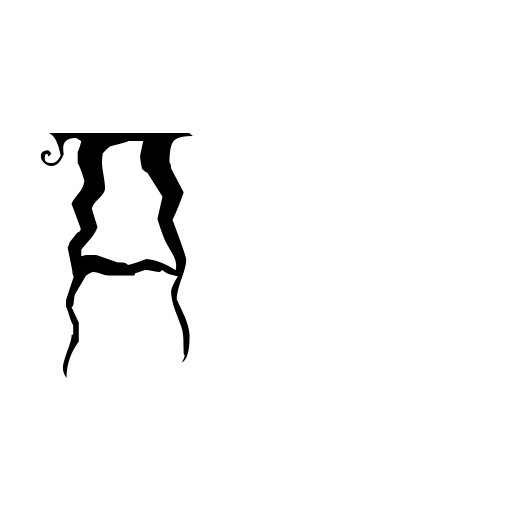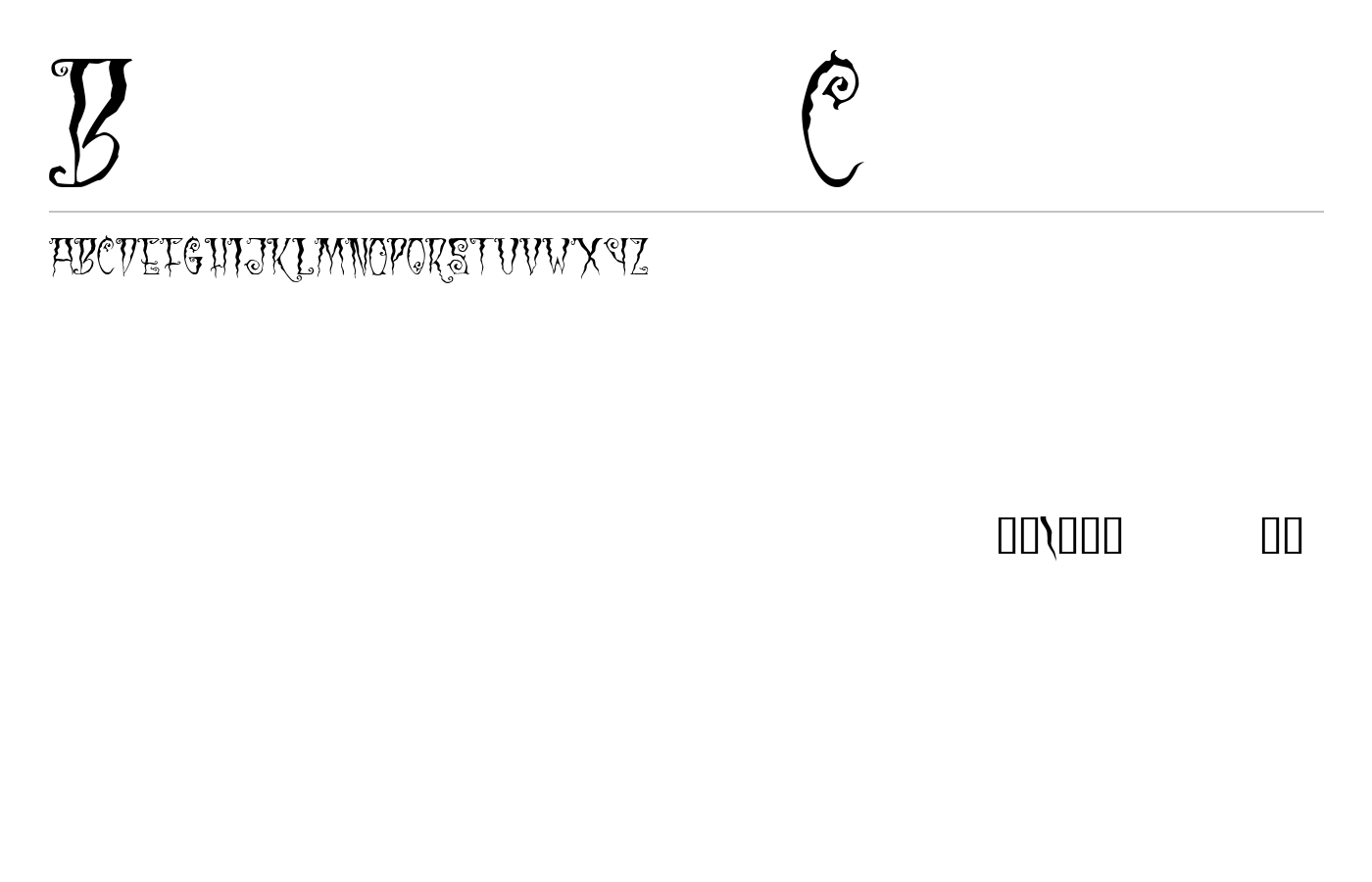
Black Cow is a decorative serif font with a distinctive, quirky style characterized by sharp, irregular strokes and whimsical swirls, giving it a slightly gothic and handcrafted feel. Its tall, narrow letterforms with dramatic flares and intricate details make it perfect for eye-catching headlines, logos, or creative projects that aim to convey a mysterious, vintage, or artistic mood. This font works best in display settings where its unique character can shine without sacrificing readability.
Black Cow Font
About Black Cow Font